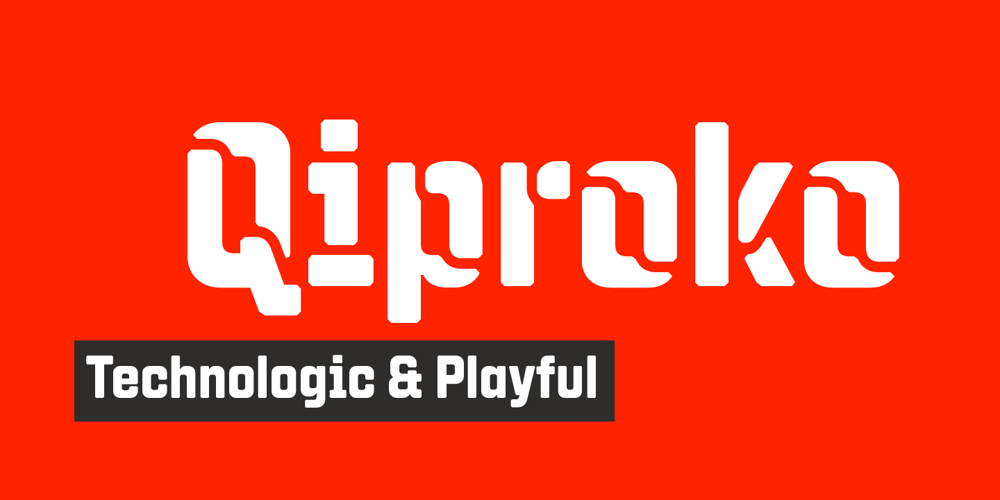
Qiproko Font Family was designed by Nico Inosanto and published by Nootype. Qiproko contains 10 styles and family package options. Qiproko is a typeface with semi-modular and geometric shapes. The squared curves remind the shape of the cathode ray tube monitor, giving a retro feel to the characters. It’s unusual stencil version makes a direct reference to the electronic circuit, which gives a very technological aspect. Each font includes OpenType Features such as Tabular Figures and Capital alignement. The fonts have an extended characters set to support Central, Eastern and Western European languages. Qiproko is perfectly suitable for headlines or epigraphs, but works in text too.